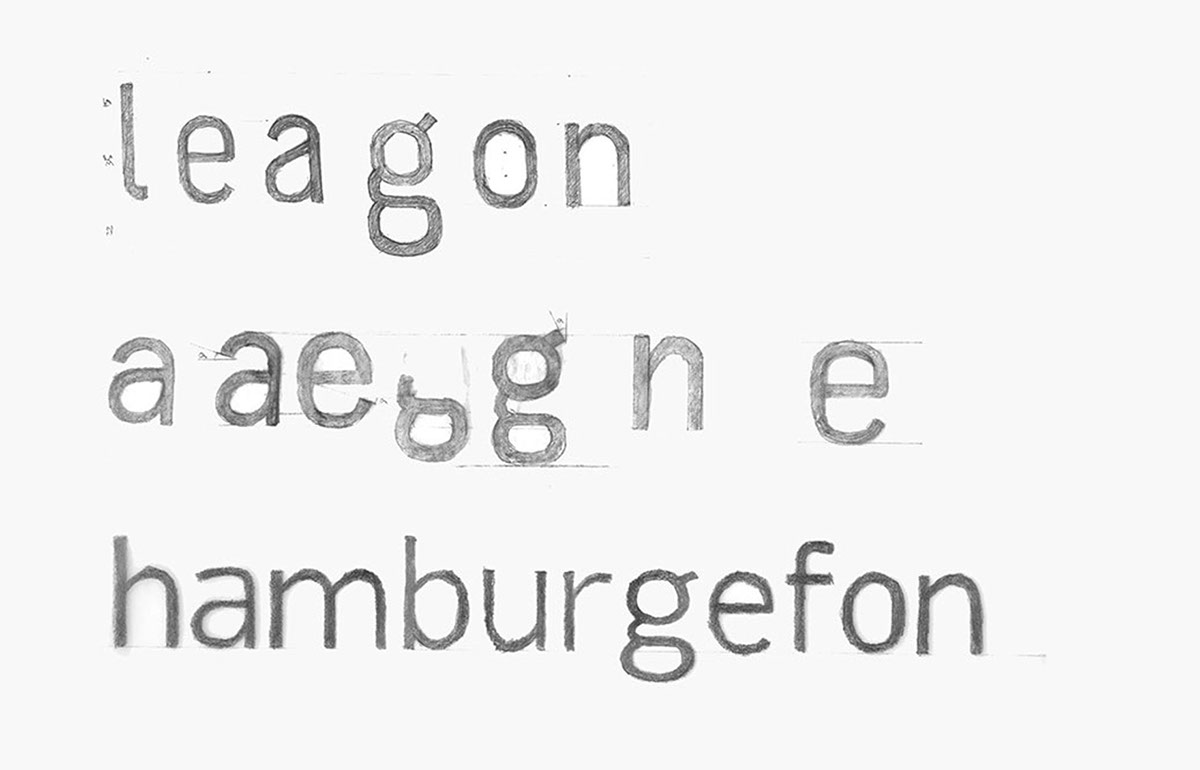
Typeface Fabrica
Designed by Alvin Kwan
BACKGROUND
Fabrica was my graduation project during the last semester at Emily Carr University in 2011. During this time, mobile interfaces and smart phones had just gained tremendous popularity. Despite the fact that Helvetica was not designed intentionally for small screens, it was still the default typeface on the iPhone and iPad. Typographers and graphic designers were starting to discuss this design problem. Supervised by my teachers Ross Milne and Casey Hrynkow, I explored this design problem as the premise to my graduation project.
DISCOVERY
Within the short four month semester, I had to create an effective schedule including research, typeface design, specimen design and exhibition design. During the research phase, I focused on understanding and dissecting typographic characteristics for optimal legibility. I was also doing research on wayfinding typefaces and their characteristics such as FS Millbank by Fontsmith and Wayfinding Sans Pro by Ralf Herrmann. Through my research findings, I was able to create a precise parameter on how to design a highly legible typeface for small screens.
DESIGN
Distinctive forms, open internal shapes and tall x-heights were some attributes for Fabrica. Due to the limitation of pixels on smaller screens, serifs would not be ideal for this application. The final details of Fabrica were drawn from the more systematic constructed Neo-Grotesques, giving it a neutral tone of voice. Above all, Fabrica’s beauty is found in its functionality.